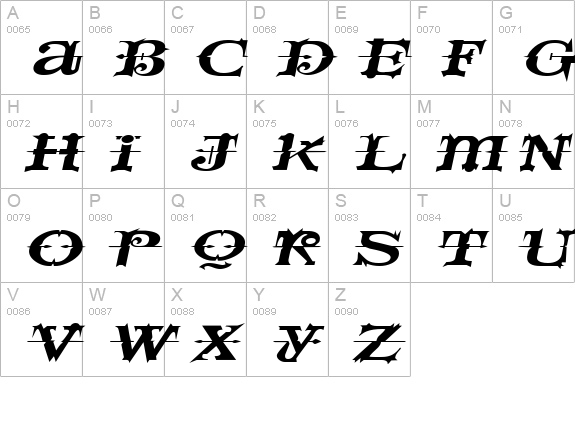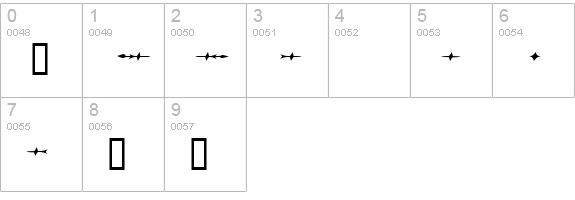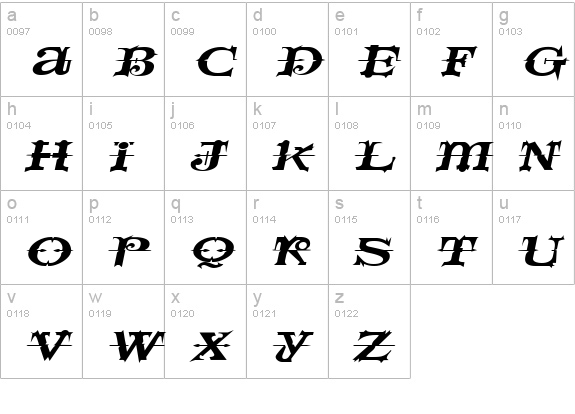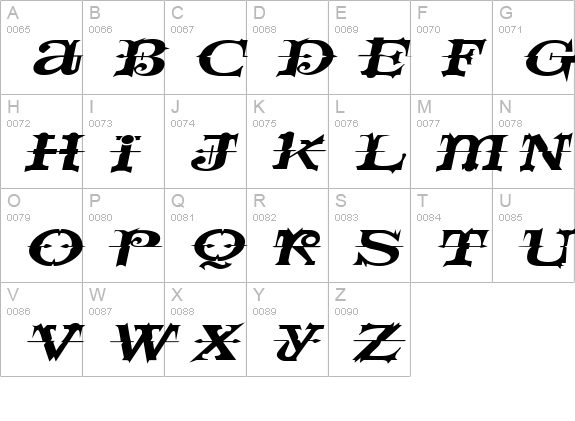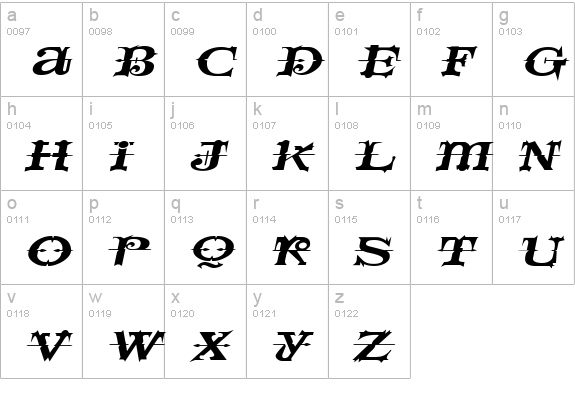
SpaceIveyExtended Italic Font Details
SpaceIveyExtended Italic is a distinctive, italic variant in the SpaceIveyExtended typeface family \xE2\x80\x94 well suited to design and typography projects.
SpaceIveyExtended Italic font is a captivating and stylish typeface that adds a touch of elegance to any design project. Its sleek and elongated letterforms create a sense of motion and sophistication, making it perfect for modern and futuristic designs. This font is not only visually stunning but also incredibly versatile. It can be used for a variety of purposes, including headlines, titles, logos, and branding materials. Whether you're designing a website, creating a magazine layout, or crafting an eye-catching poster, SpaceIveyExtended Italic font will elevate your design and grab attention. One of the best features of this font is that it is free to download at FontsMarket.com. This means that you can add this stunning typeface to your font collection without any cost. The availability of SpaceIveyExtended Italic font for free allows designers, students, and enthusiasts to explore and experiment with this unique and captivating typeface without any financial barriers. With its generous x-height and elegant italic slant, SpaceIveyExtended Italic font is not only visually appealing but also highly legible. This makes it ideal for both print and digital designs, ensuring that your message is conveyed clearly and effectively. Whether you're designing for a corporate brand, a fashion magazine, a technology blog, or any other creative project, SpaceIveyExtended Italic font will bring a touch of sophistication and modernity to your designs. Its unique and bold letterforms will captivate your audience and make a lasting impression. So why wait? Download SpaceIveyExtended Italic font for free at FontsMarket.com and start adding a touch of elegance and style to your designs today.